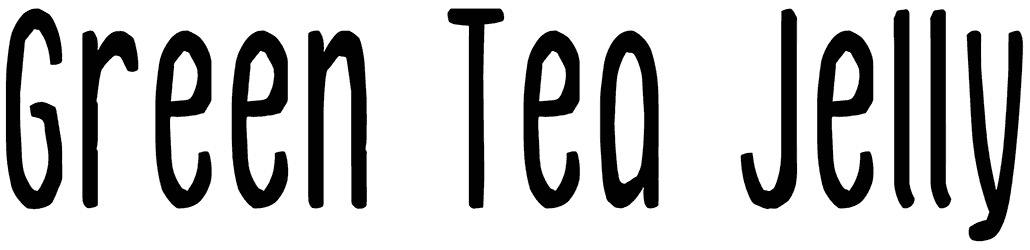
Green Tea Jelly Font
It’s so fascinating when you use a natural form for your words and create a realistic and friendly design that can impress a lot of observers. This handwritten font, with its casual and tall letters, can get you there. Green Tea Jelly font is a unique item that is going to add a minimal vibe to your special sale event poster, or whatnot.